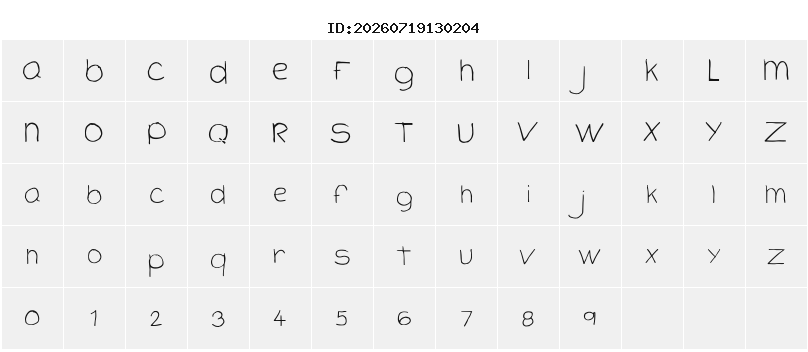
• Font Name: CloutierScript
• Full Font Name: CloutierScript Regular
• Designer: Steve Cloutier
About CloutierScript.ttf
CloutierScript.ttf is a modern, elegant sans-serif font designed for ultimate readability and visual harmony. Perfect for branding, headlines, web design, and print materials.